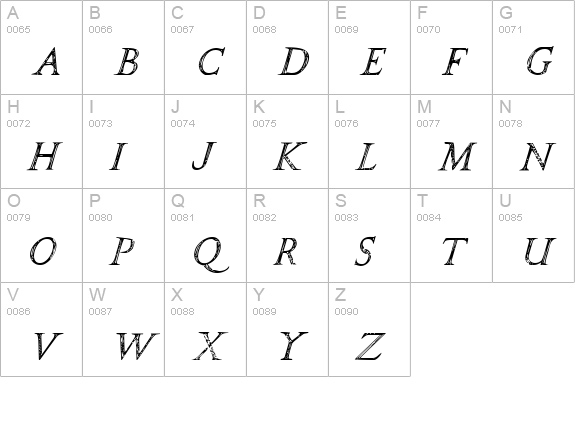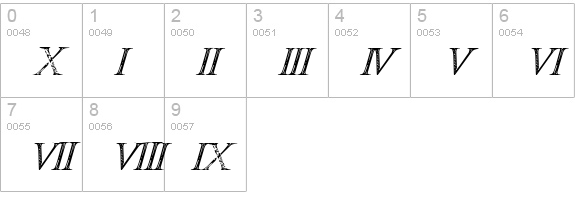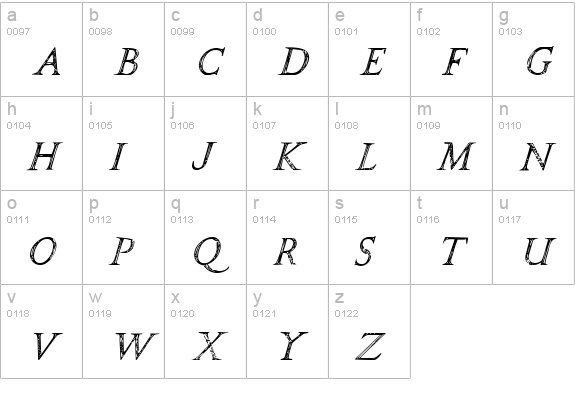
SPQR Italic is a distinctive, italic variant in the SPQR typeface family \xE2\x80\x94 well suited to design and typography projects.
SPQR Italic font is a stunning display typeface that exudes elegance and sophistication. With its sleek and refined letterforms, this font is perfect for adding a touch of class to any design project. The italic style of the font adds a sense of movement and flair, making it ideal for titles, headlines, and other eye-catching text elements. What sets SPQR Italic font apart is that it is available for free download at FontsMarket.com. This means that you can easily access this high-quality font for all your creative endeavors without any cost. Whether you're working on a website, poster, logo, or any other design project, SPQR Italic font is sure to elevate your work to the next level. Download SPQR Italic font for free today and bring a touch of sophistication to your designs!